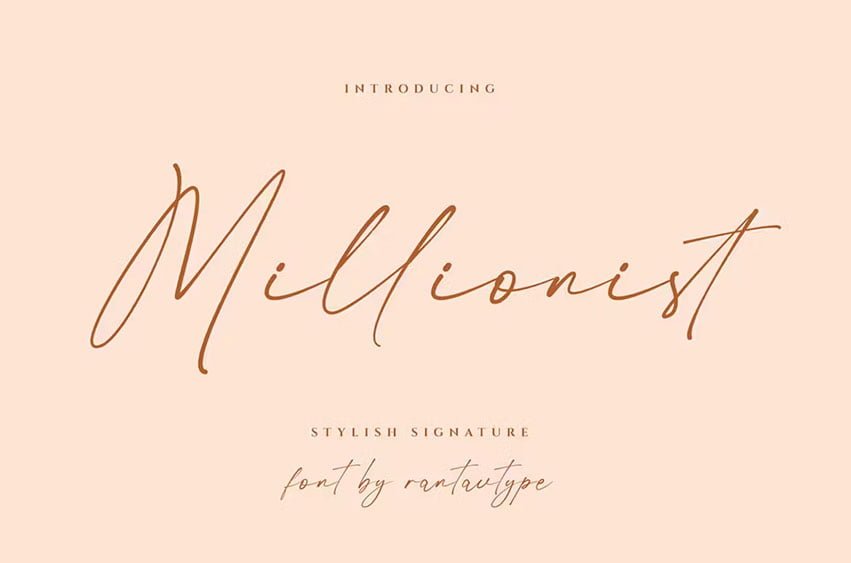
Millionist Font is an elegant style that can be interpreted professionally. we keep this font looks elegant, luxurious, premium, modern, readable, stylish, feminine, girly, catchy and easy to use.
Millionist is the great choice for watermark on photography, signature or signature logo design, quotes, album cover, magazine, business card and many other design project. Millionist here to make your work to high level!!!